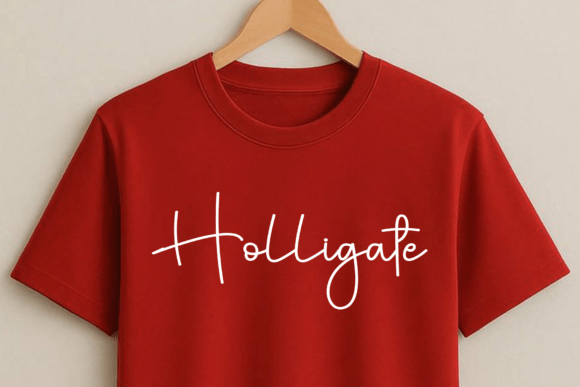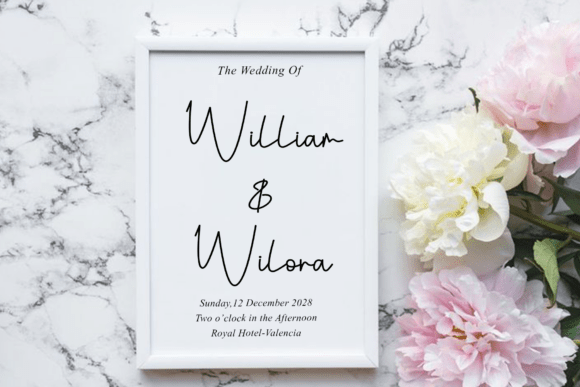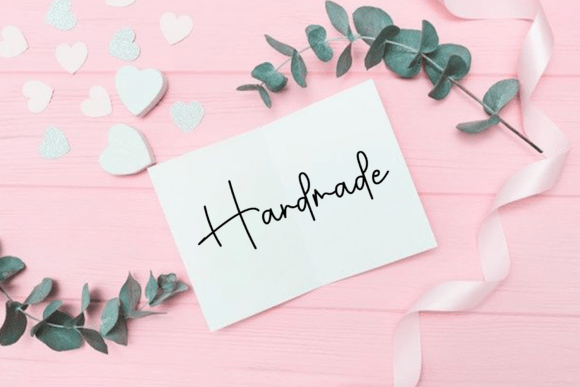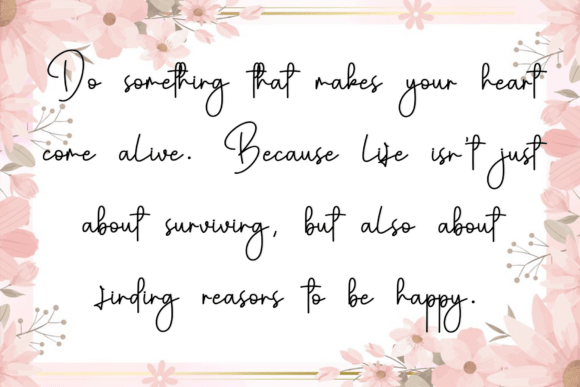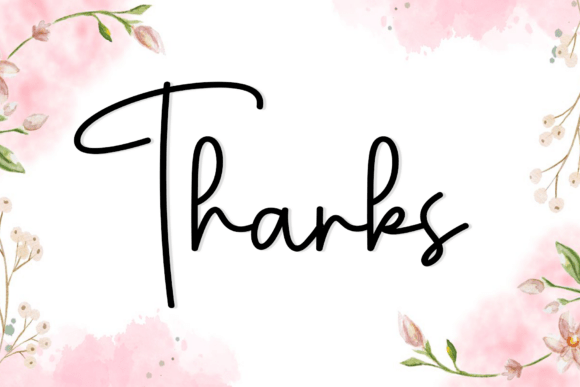
Introducing Anydore Font: Elevate Your Designs with Elegance and Sophistication
In the world of typography, a well-crafted font can make all the difference in elevating your designs from ordinary to extraordinary. For designers and crafters seeking a typeface that exudes luxury, sophistication, and modernity, look no further than Anydore Font. This elegant and fluid handwritten script font is specifically designed to capture the essence of high-end branding, making it a perfect choice for luxury wedding stationery, intimate event branding, high-end editorial signatures, and sophisticated lifestyle photography overlays.
The Essence of Anydore Font
Anydore Font is more than just a typeface; it’s an expression of refinement and poise. Its fluid strokes and elegant letterforms are meticulously crafted to convey a sense of sophistication and luxury. Whether you’re designing wedding invitations, branding materials for an intimate event, or adding a touch of elegance to lifestyle photography, Anydore Font is the perfect choice. Its modern and sophisticated aesthetic ensures that your designs stand out with a touch of class and distinction.
Perfect for Luxury Wedding Stationery
For couples looking to make their wedding stationery truly unforgettable, Anydore Font offers a level of elegance and sophistication that’s hard to match. From wedding invitations to save-the-date cards, this font adds a luxurious touch that sets the tone for an exquisite celebration. Its fluidity and elegance make it ideal for conveying the joy and beauty of such a special day.
Intimate Event Branding
Anydore Font is not just limited to wedding stationery; it’s also perfect for branding intimate events such as anniversaries, baby showers, and more. Its sophisticated look and feel can elevate any event’s branding materials, making them memorable and impactful. Whether it’s a logo, invitation, or any other promotional material, Anydore Font ensures your event stands out with style and elegance.
High-End Editorial Signatures
For editorial and publishing projects, Anydore Font offers a distinctive and luxurious touch. Its elegant script can be used to create stunning signatures, author bylines, or even headings that add a level of sophistication to any publication. Whether it’s a high-end fashion magazine, a luxury lifestyle journal, or a sophisticated blog, Anydore Font can help you make a lasting impression.
Sophisticated Lifestyle Photography Overlays
Anydore Font can also be used to add a touch of elegance to lifestyle photography. Its fluid and modern script can be overlayed on photographs to create stunning visual effects that are perfect for social media posts, personal blogs, or professional portfolios. This font allows photographers and designers to add a narrative element to their images, making them more engaging and memorable.
Why Choose Anydore Font?
So, why should designers and crafters choose Anydore Font for their projects? Here are a few compelling reasons:
- Elegance and Sophistication: Anydore Font offers a level of elegance and sophistication that’s hard to find in other typefaces.
- Versatility: It’s versatile enough to be used in a variety of projects, from wedding stationery to lifestyle photography overlays.
- Modern Aesthetic: Its modern and fluid script ensures that your designs look contemporary and stylish.
- Easy to Read: Despite its elegant and cursive nature, Anydore Font remains easy to read, making it practical for a range of applications.
Anydore Font is a beautiful and sophisticated typeface that can elevate your designs to new heights. Its elegance, fluidity, and modern aesthetic make it the perfect choice for designers and crafters looking to add a touch of luxury to their projects. Whether you’re working on luxury wedding stationery, intimate event branding, high-end editorial signatures, or sophisticated lifestyle photography overlays, Anydore Font is sure to make a lasting impression. With its versatility and timeless beauty, it’s an excellent addition to any designer’s toolkit.